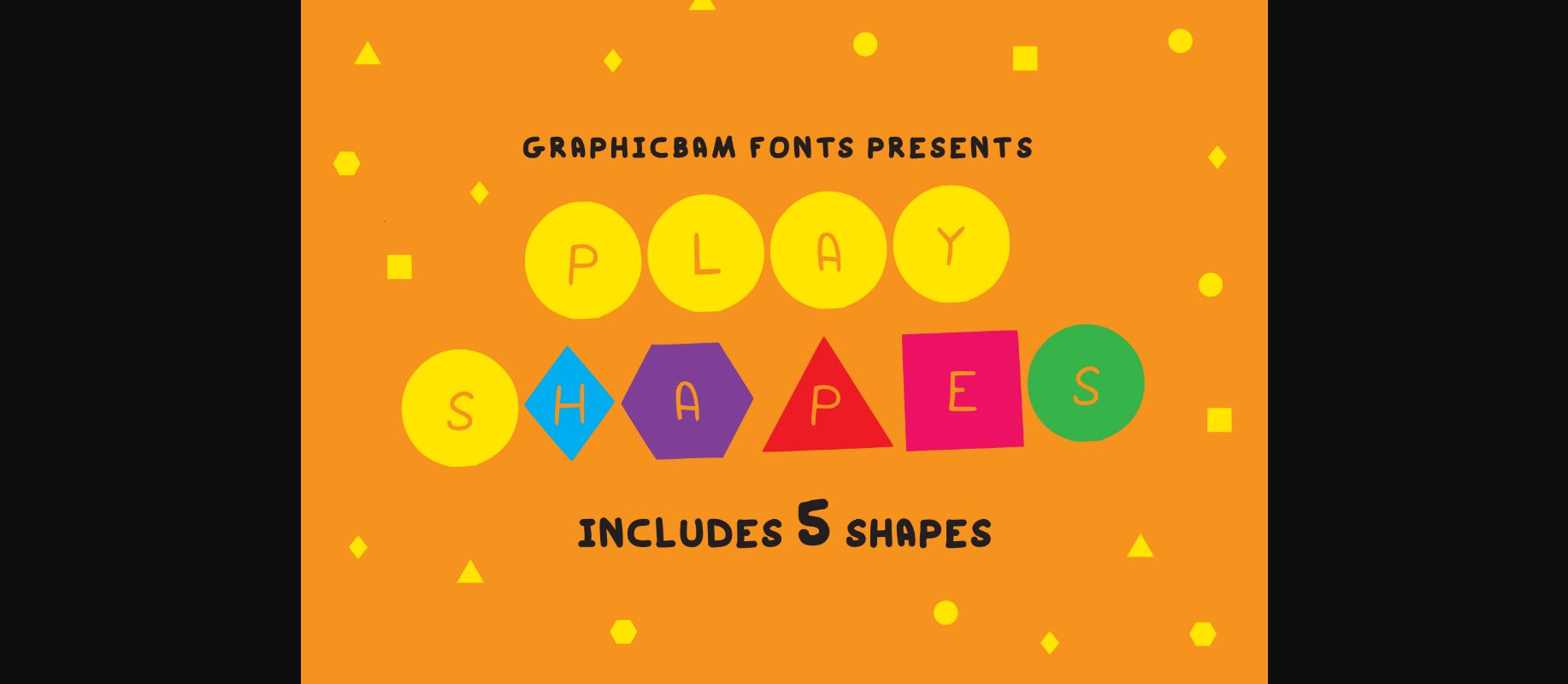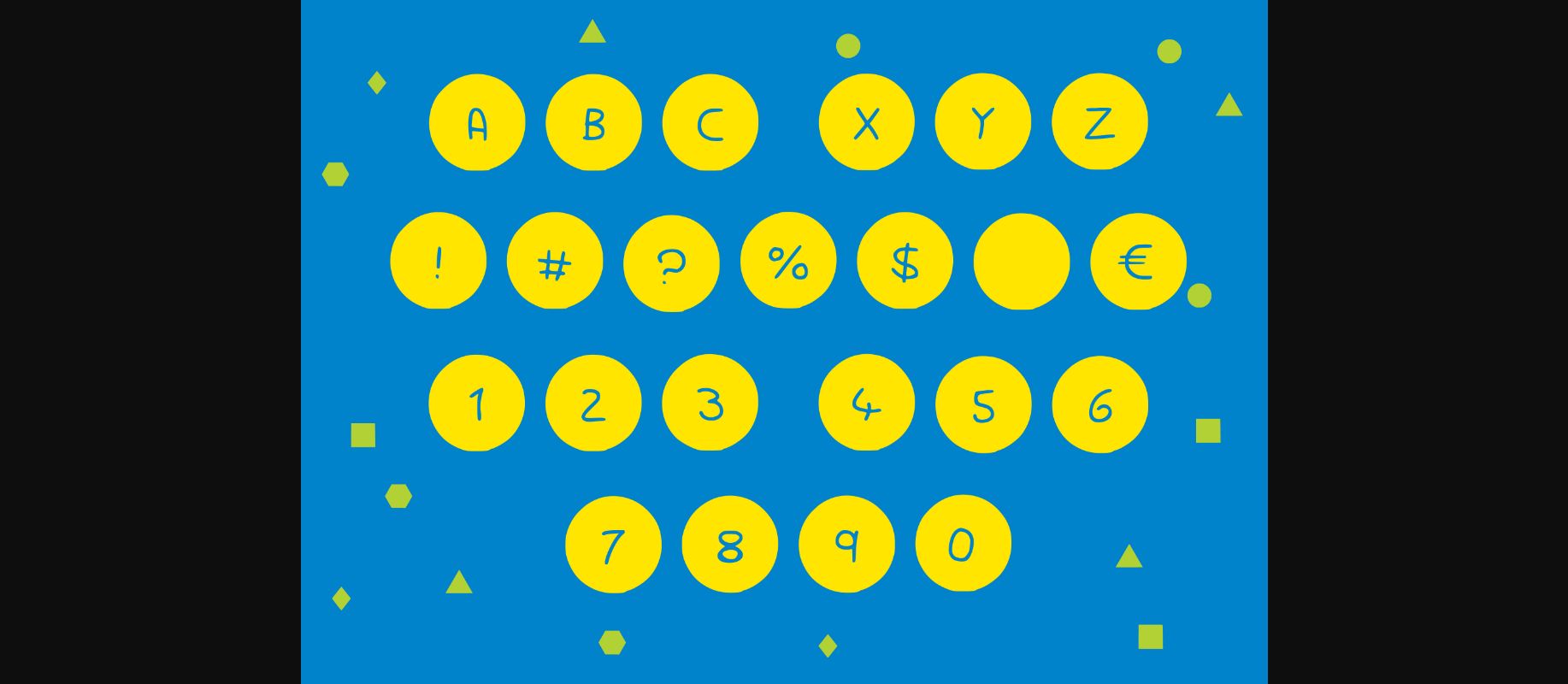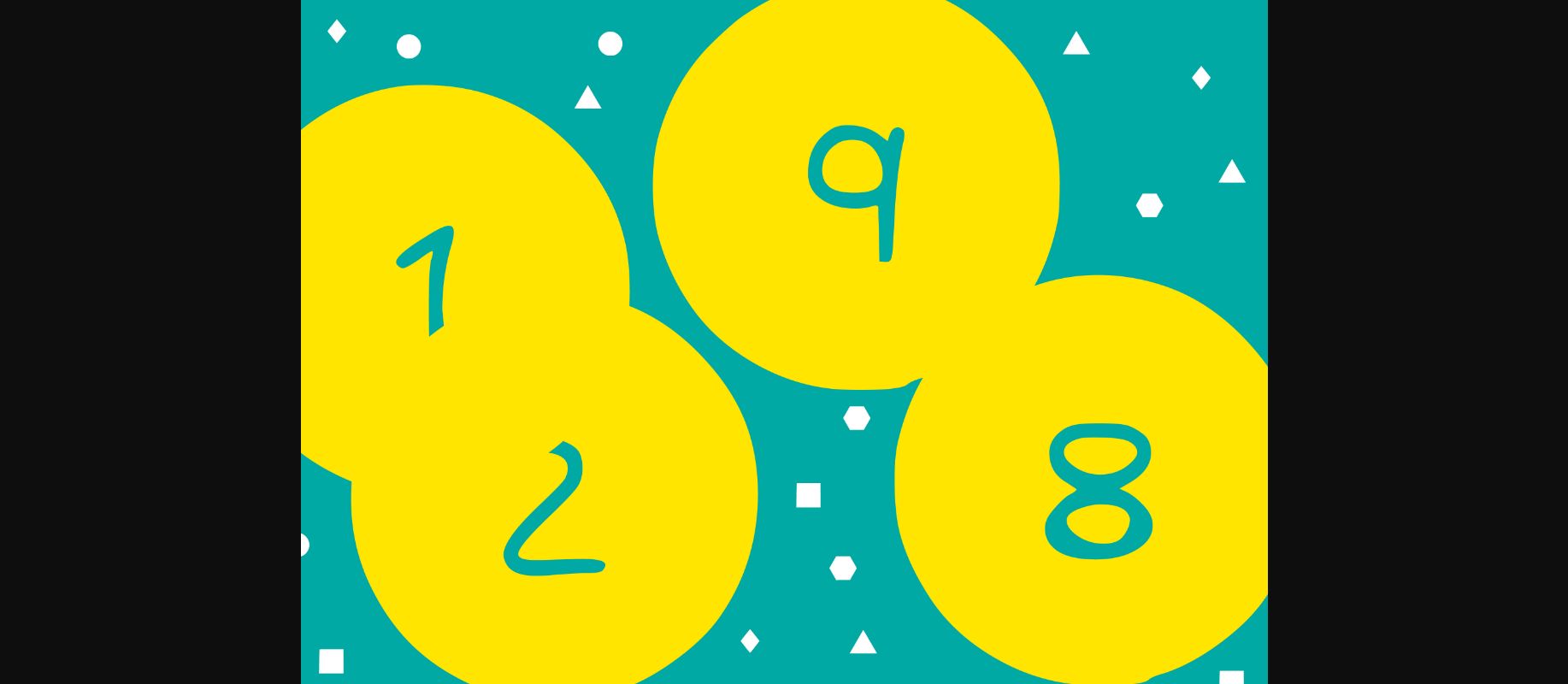
About Play Shapes Font
Play Shapes is a cute, fun and useful decorative font. It works incredibly well on teaching materials, game designs or pretty much any creation that requires a youthful touch.